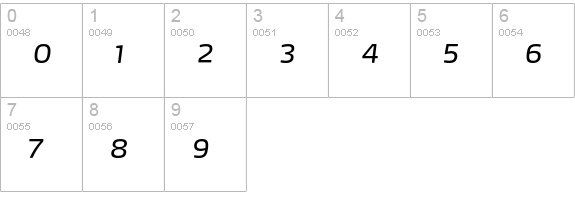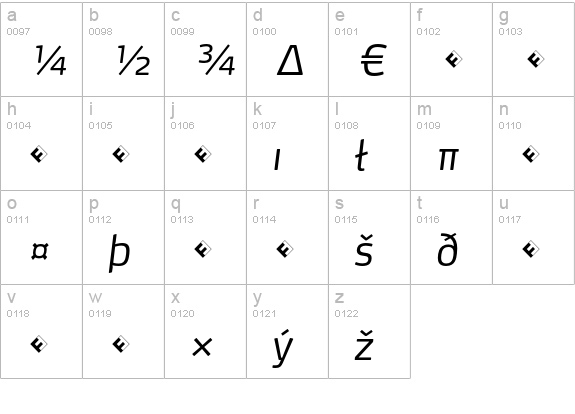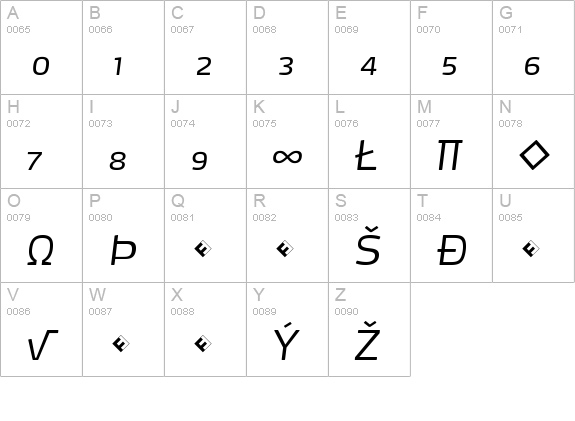
Max-LightItalicExpert Font Details
Max-LightItalicExpert is a sleek and elegant font that exudes sophistication and modernity. Its light and italicized design makes it perfect for adding a touch of style to any project. The unique curves and finely crafted details of this font make it stand out from the crowd. Best of all, Max-LightItalicExpert is available for free download at FontsMarket.com. This means you can effortlessly enhance your designs with this stunning font without breaking the bank. Whether you are working on a professional project or simply want to add a touch of flair to your personal creations, Max-LightItalicExpert is the perfect choice. Download it today and elevate your design game to the next level!